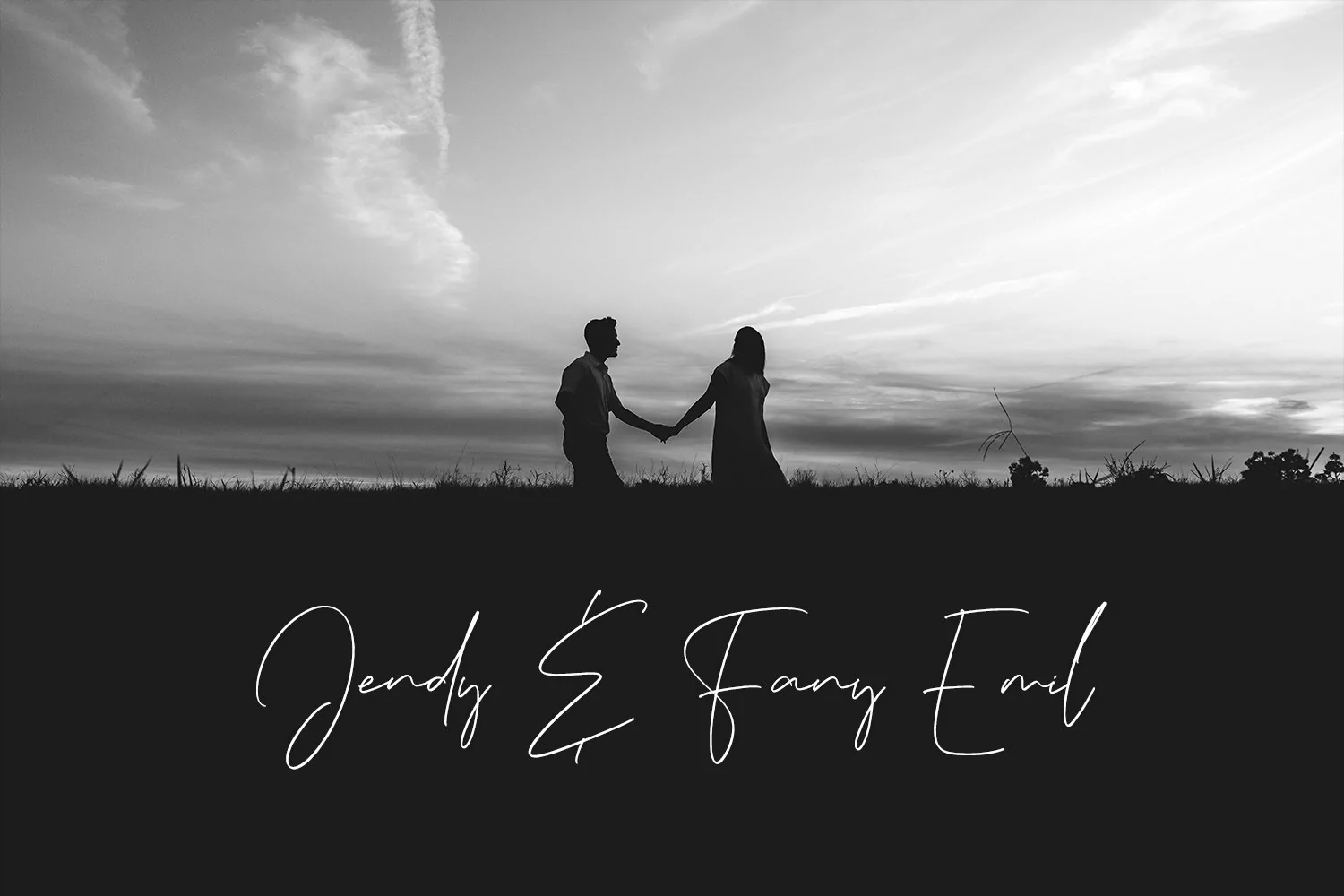
Frank Casual Signature Font is a modern feminine script font. With regular contrast stroke, fun character with some of ligatures. To give you an extra creative work. Frank Casual Signature Font support multilingual more than 100+ language. This font is good for logo design, Social media, Movie Titles, Books Titles, a short text even a long text letter and good for your secondary text font with sans or serif. Make a stunning work with Frank Casual Signature Font.